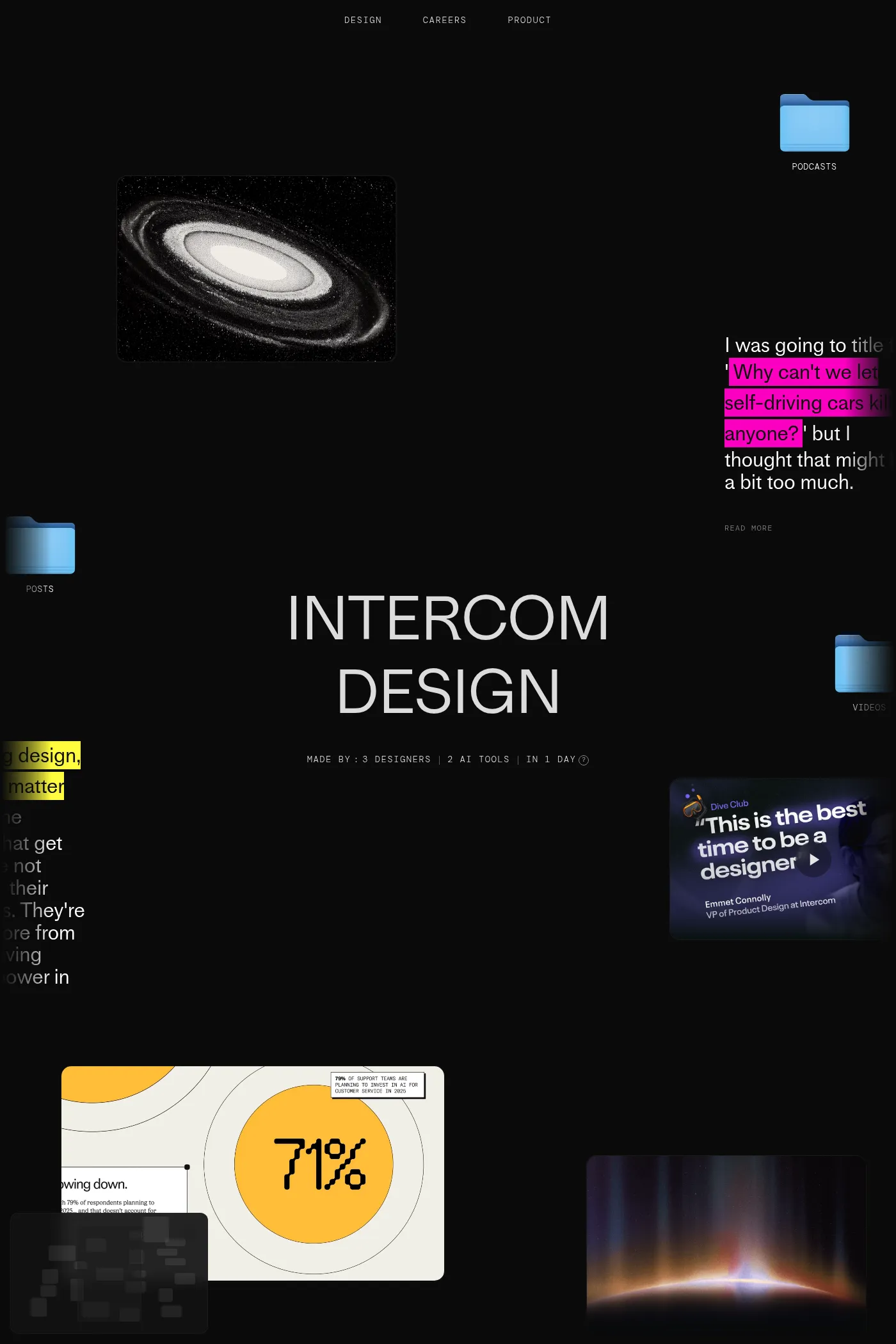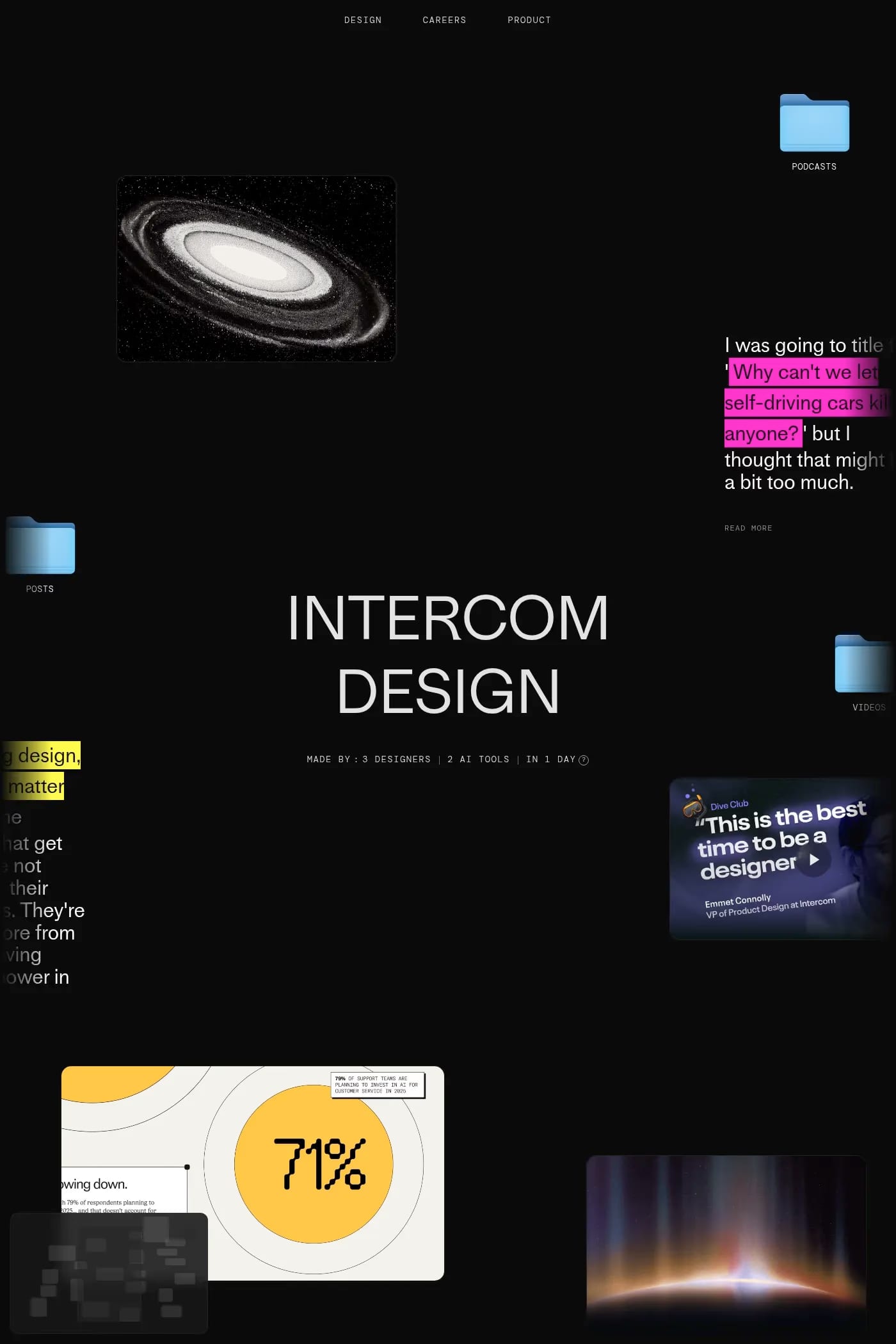
Medium is a sans-serif typeface from Lineto.
LL Medium is a new typeface based on a bold, archaic late-19th century sans serif published by the Bauer & Co. foundry in South Germany in the early 1880s, at the time simply named ‘Grotesk’.